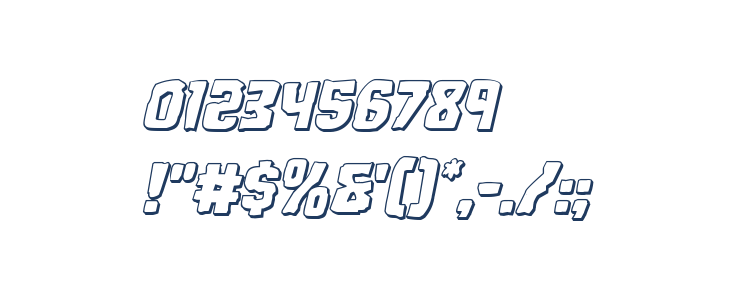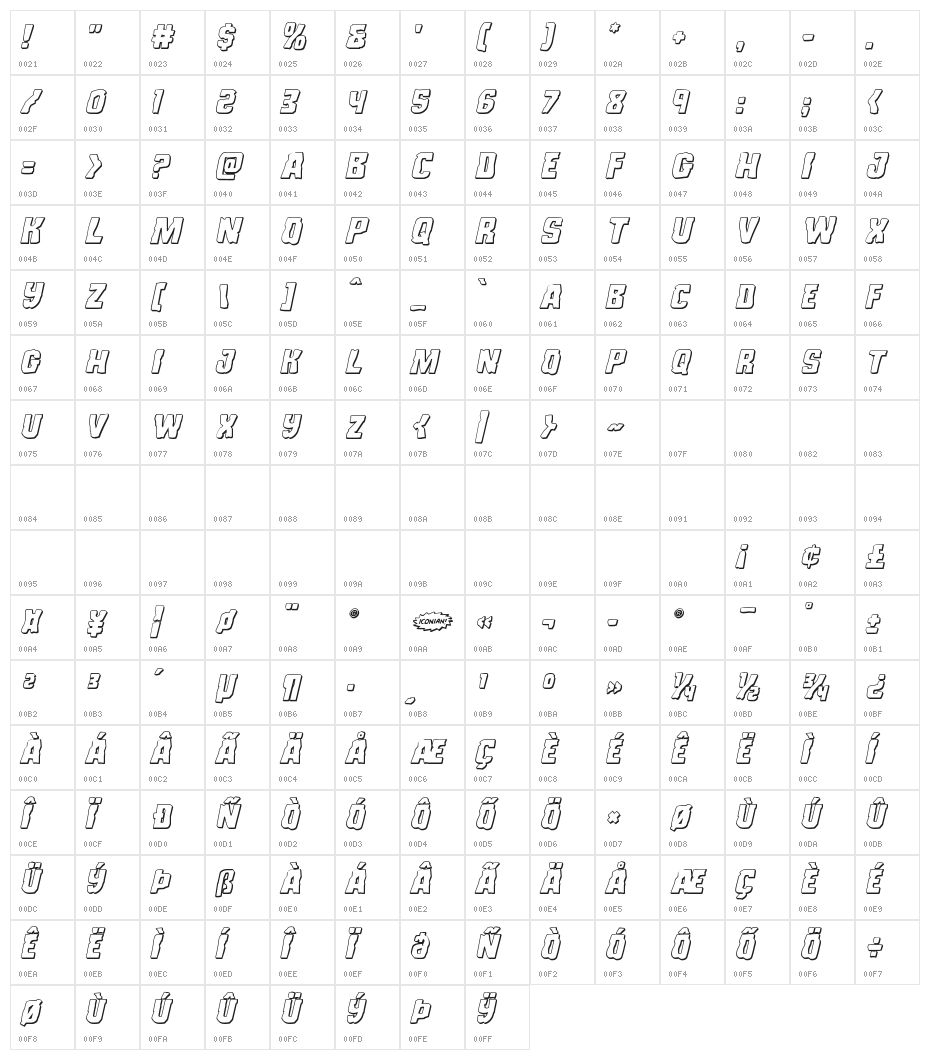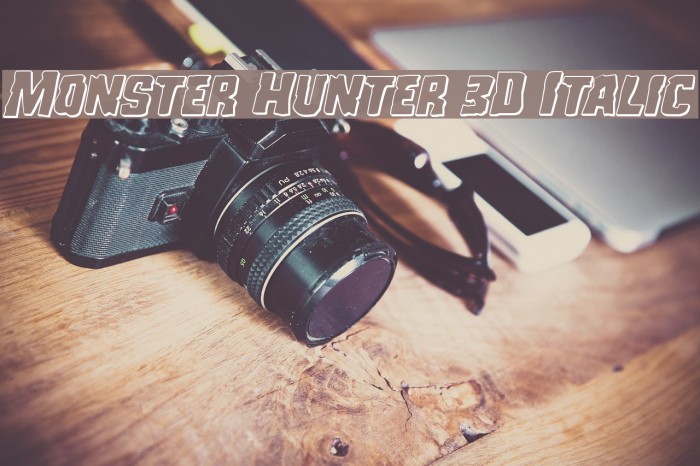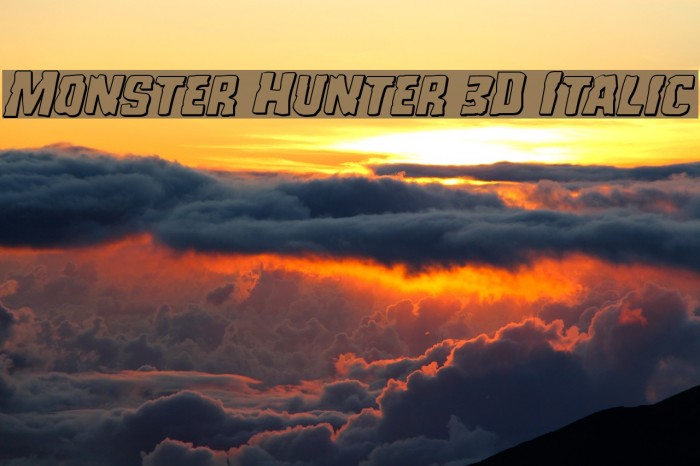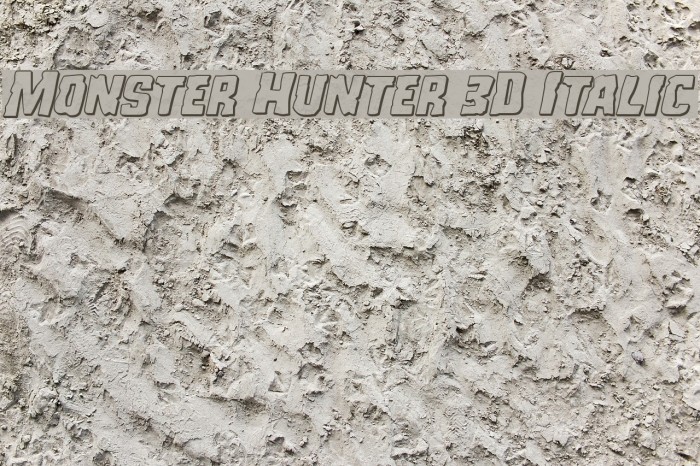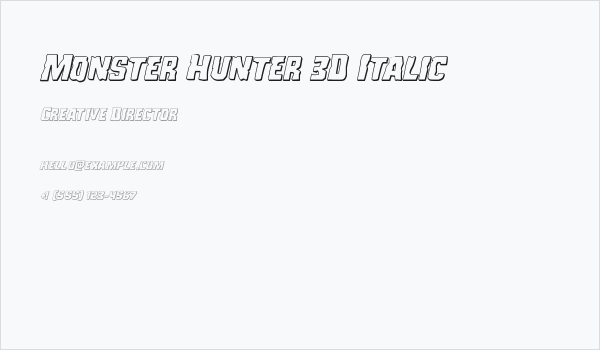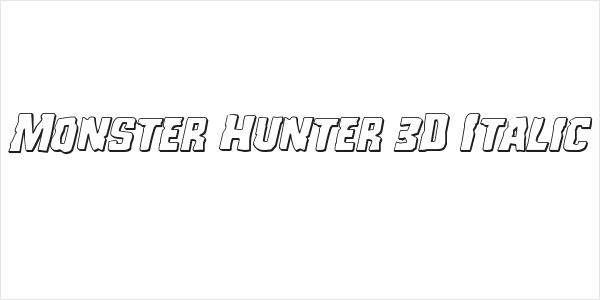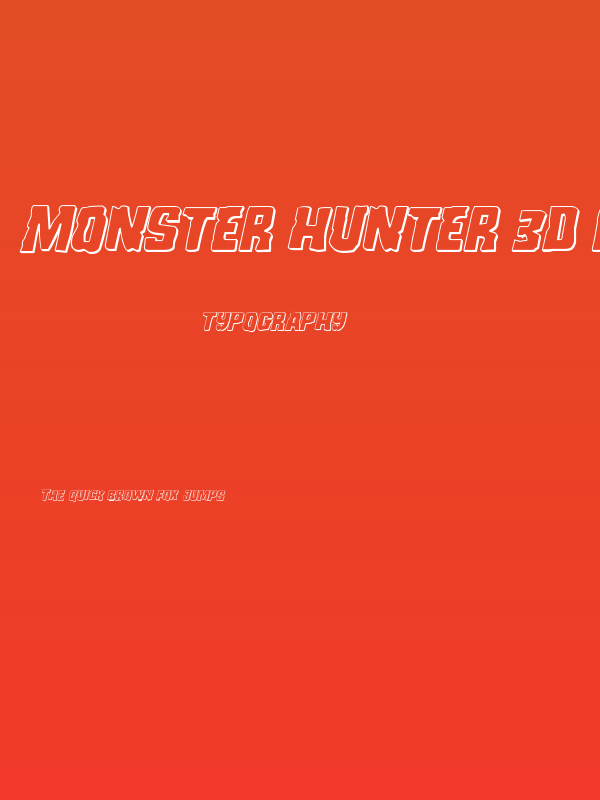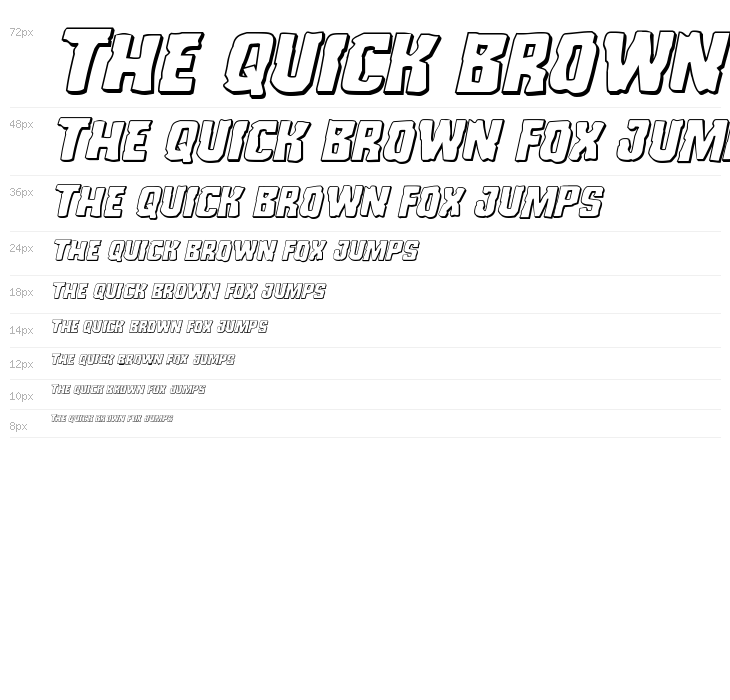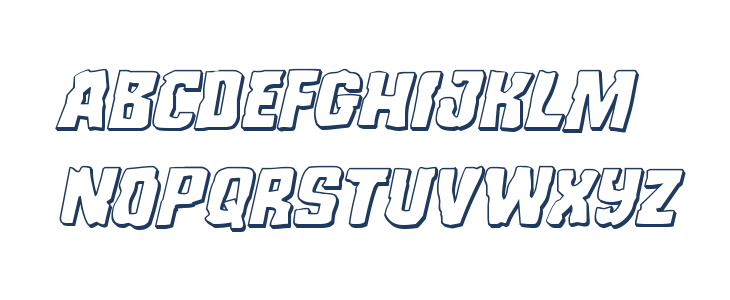
Monster Hunter 3D Italic Font
Monster Hunter 3D Italic Description
This font features a bold, three-dimensional design with a strong italic slant, giving it a dynamic and energetic appearance. The characters are outlined, creating a shadow effect that enhances the 3D illusion. The uppercase and lowercase letters maintain a consistent style, with sharp edges and a slightly condensed form. Numbers and special characters are designed to match the bold, impactful look of the alphabet. This font is ideal for projects that require a standout, eye-catching typeface.
| Proposed Projects | Perfect for video game titles, movie posters, sports team logos, and any project needing a bold, adventurous look. |